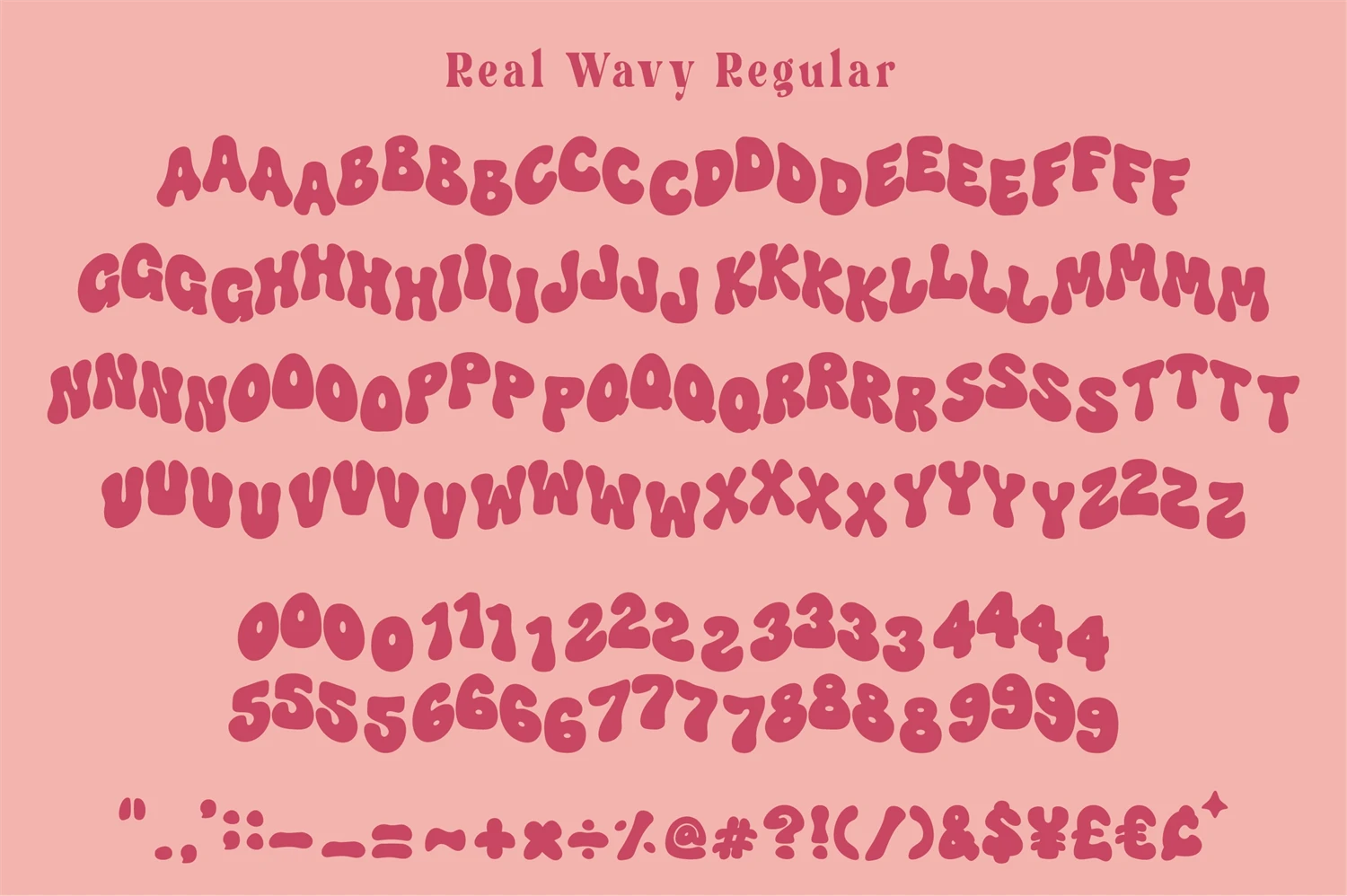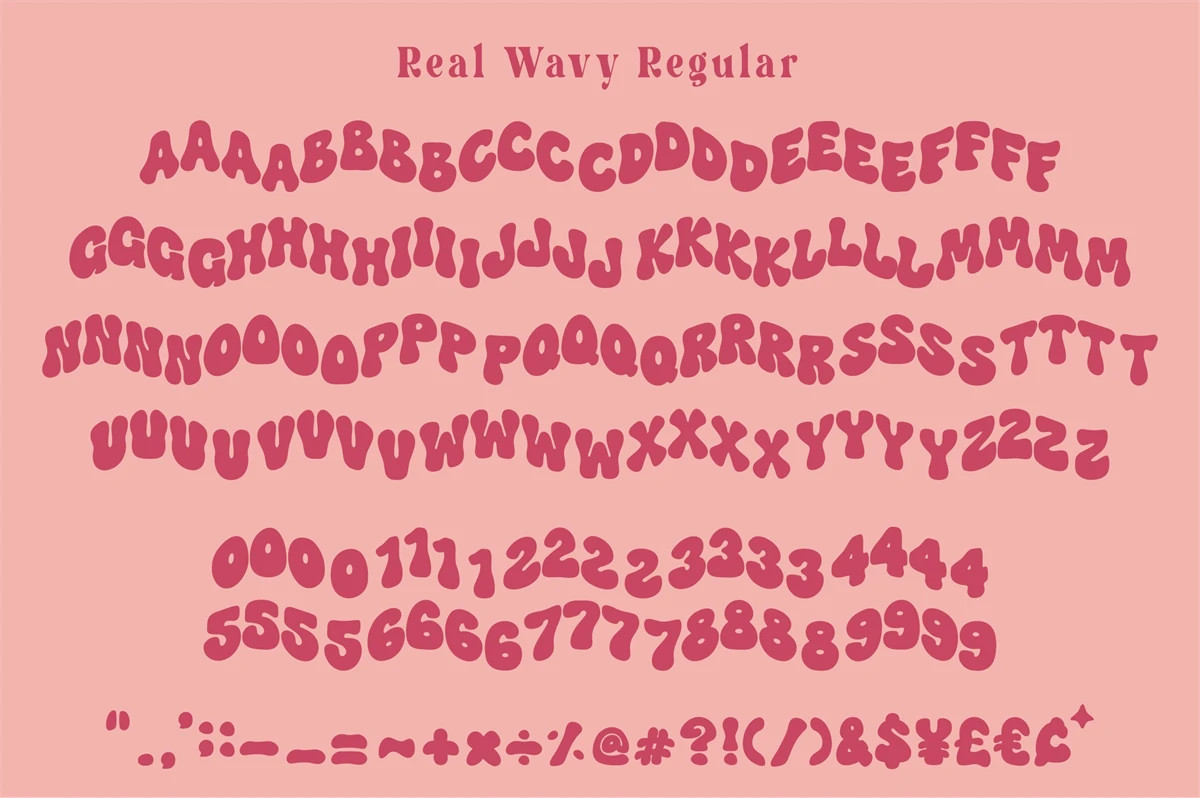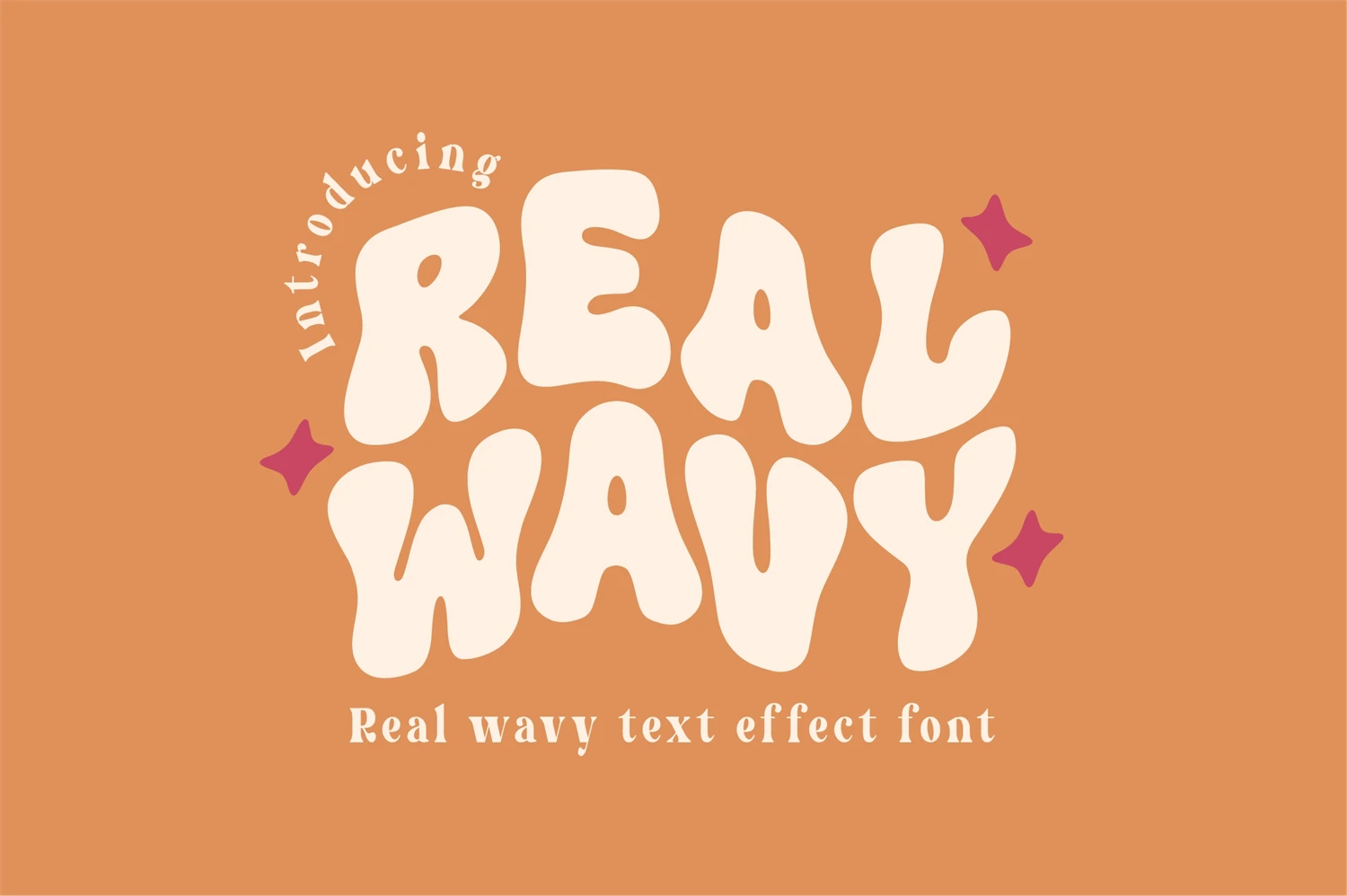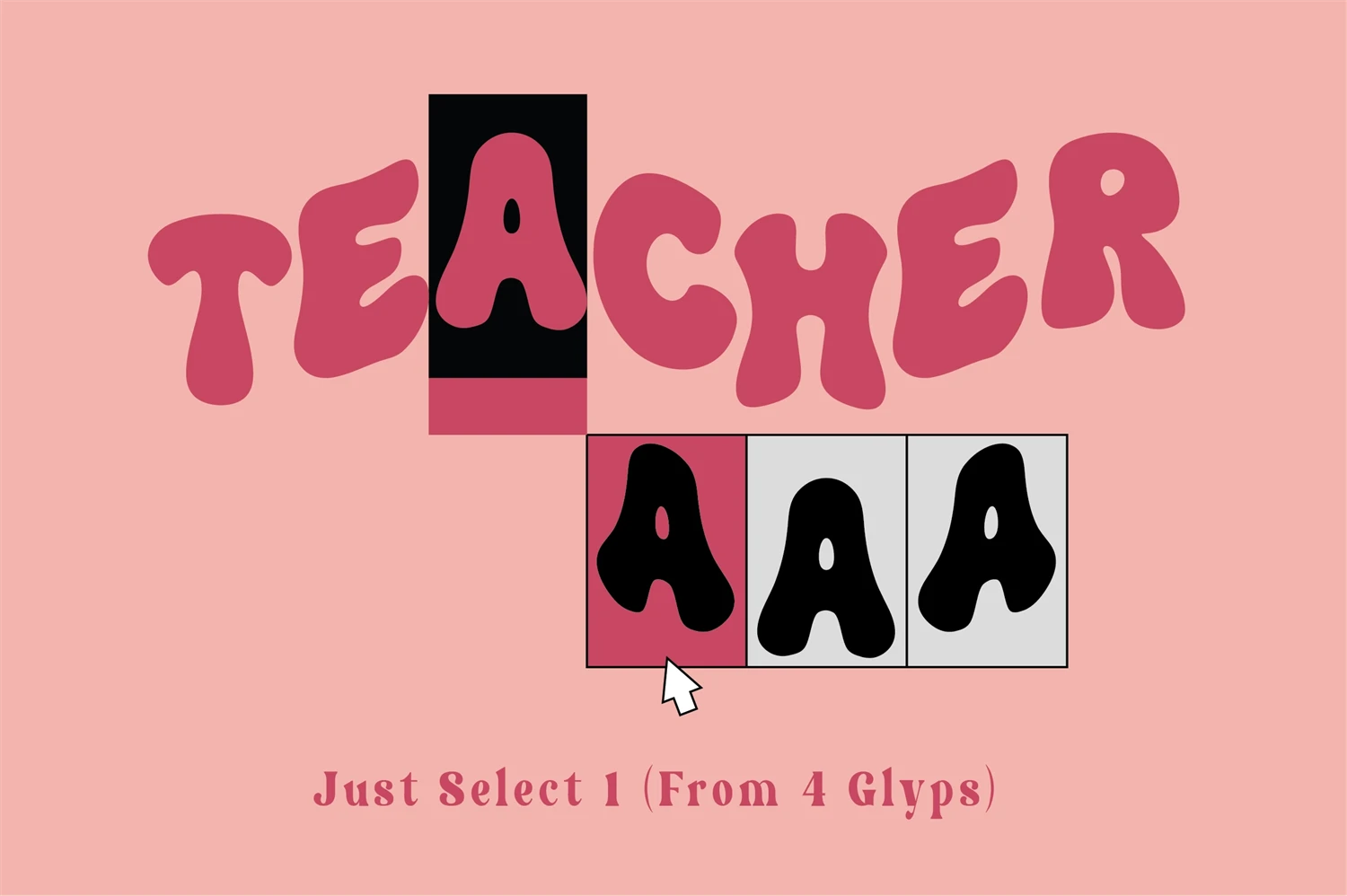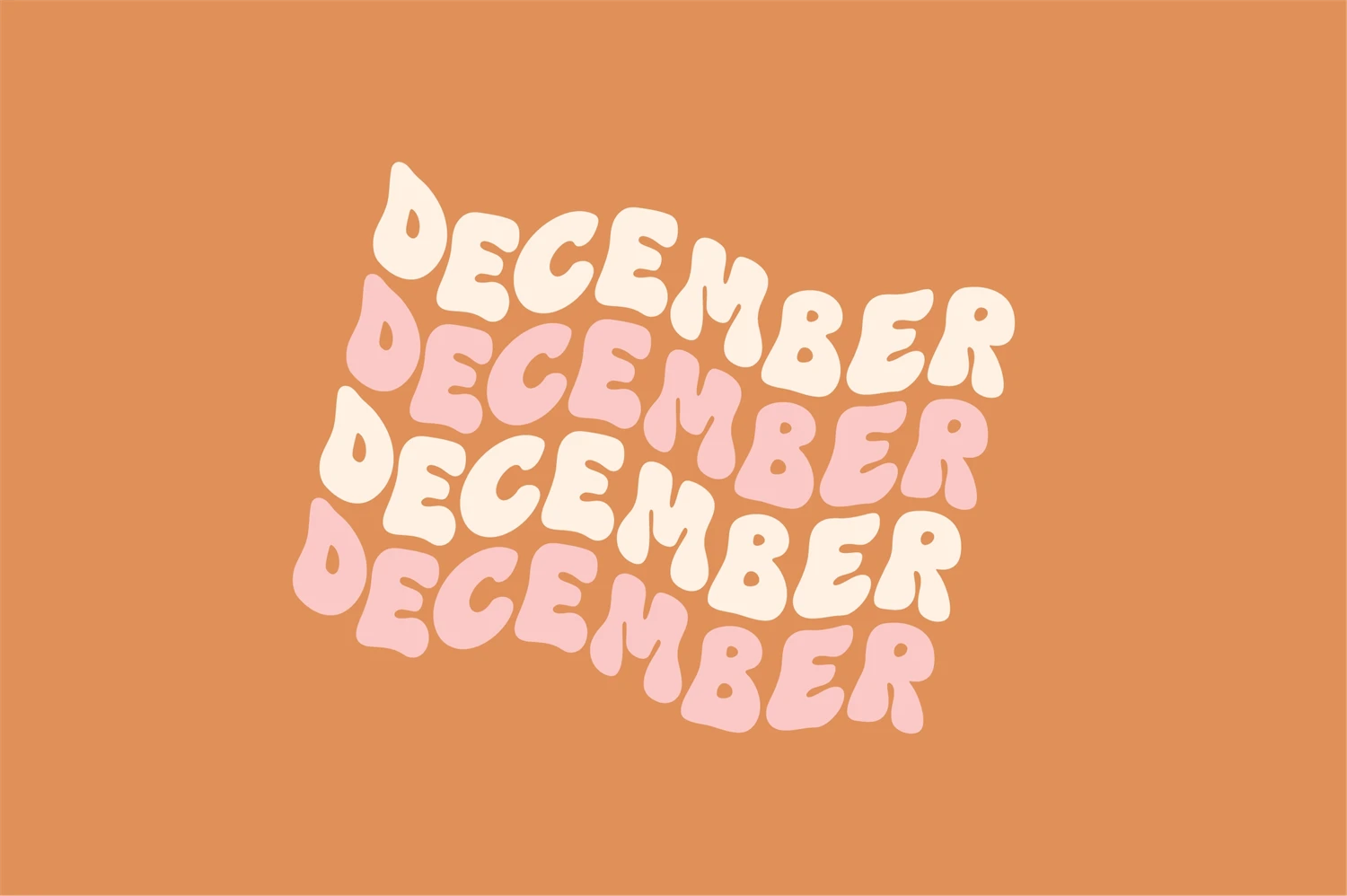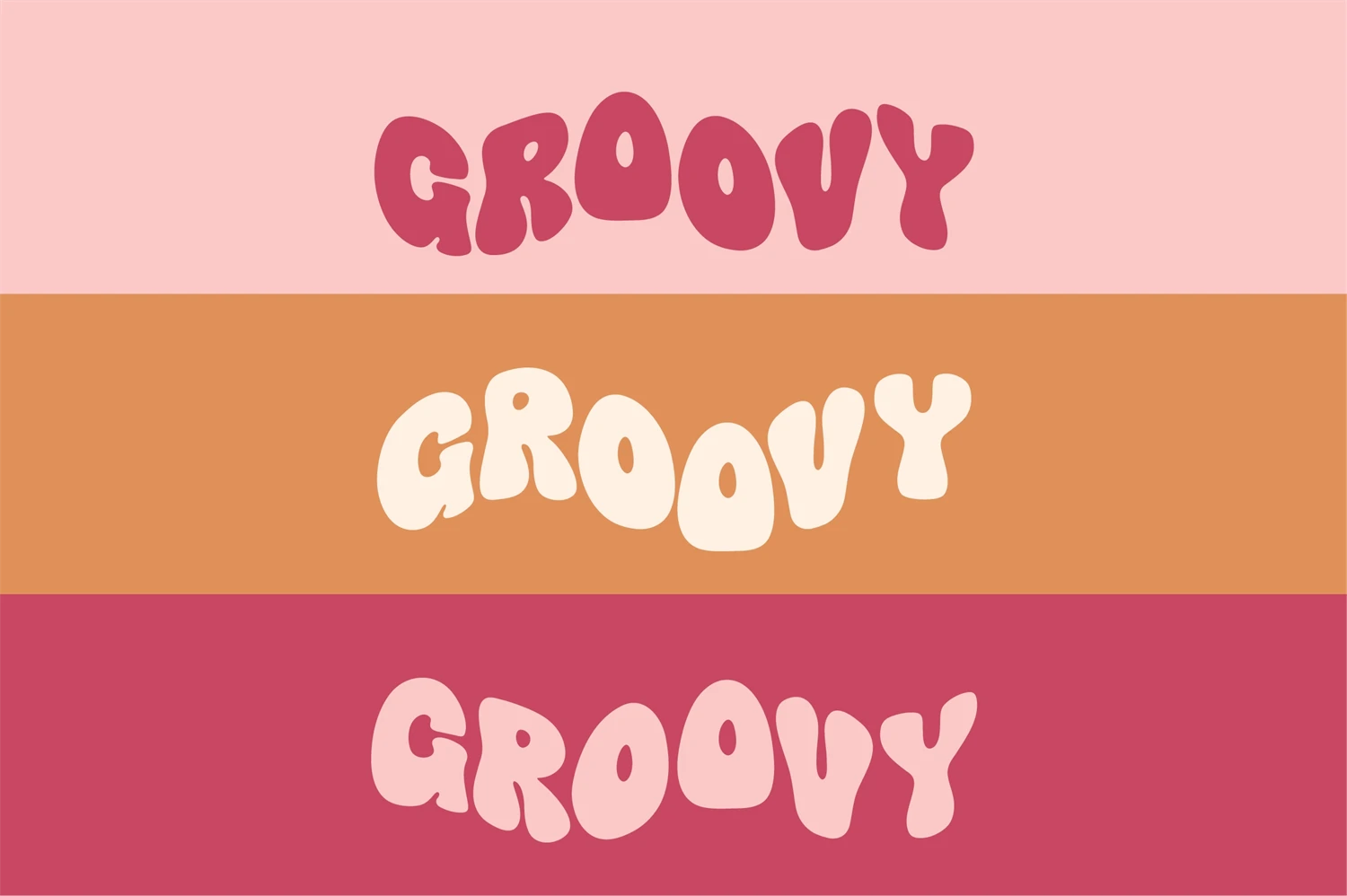
Real Wavy Retro is retro font with wavy style. Easy to create design trendy quote, logo, head title. This font is encoded which means you can access all of the amazing glyphs and ligatures with ease!